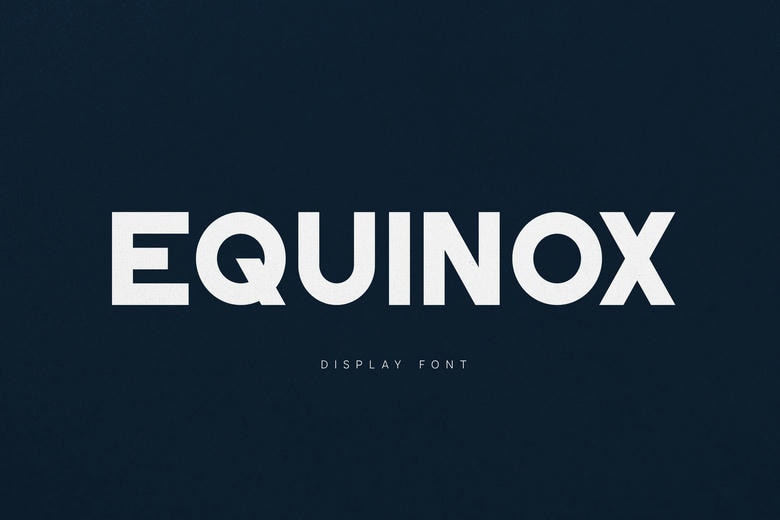
Eqinox Font
Eqinox is a power display font which is used in projects that require to be noticed. Be it a high-impact poster, futuristic branding, or film noir headline, Equinox will give you a good solid base to work on to design the world-class poster. Perfectly fitted in such strong logo marks, violent marketing campaigns, sports brands, and building signage.
Eqinox Display Font